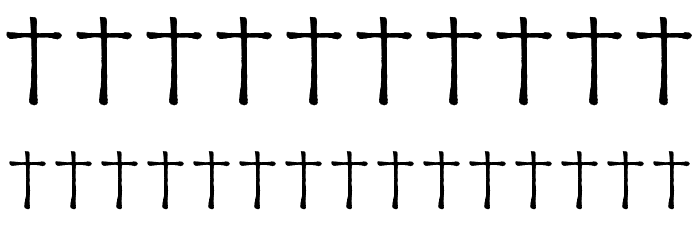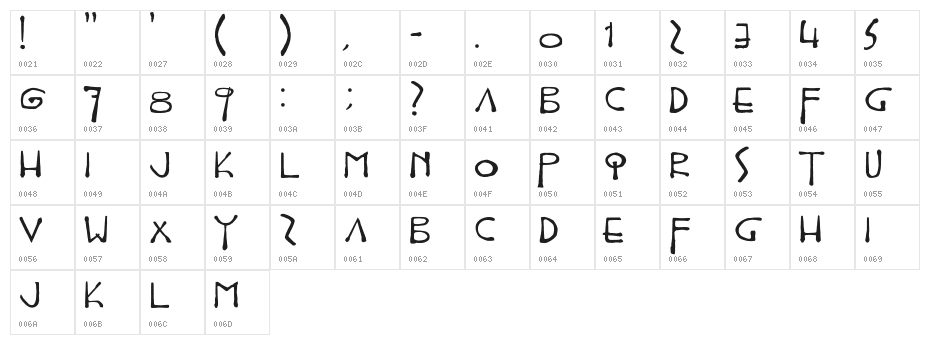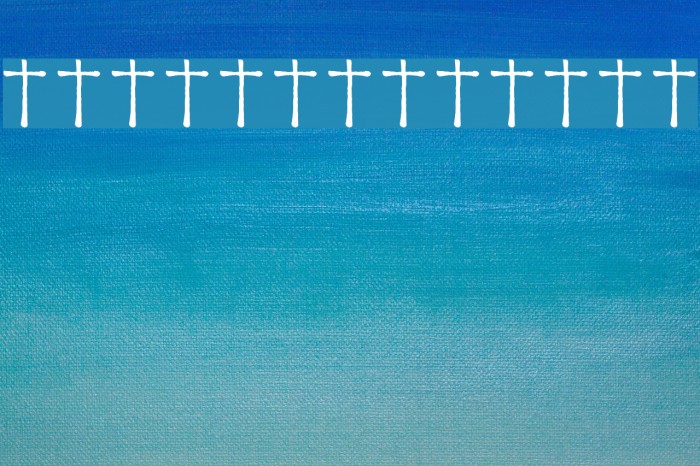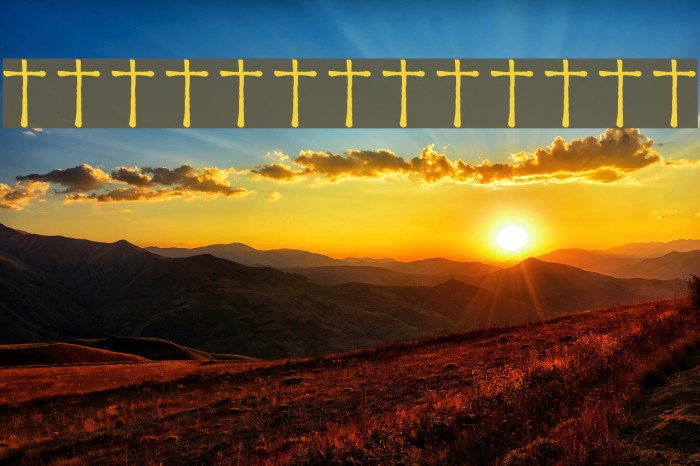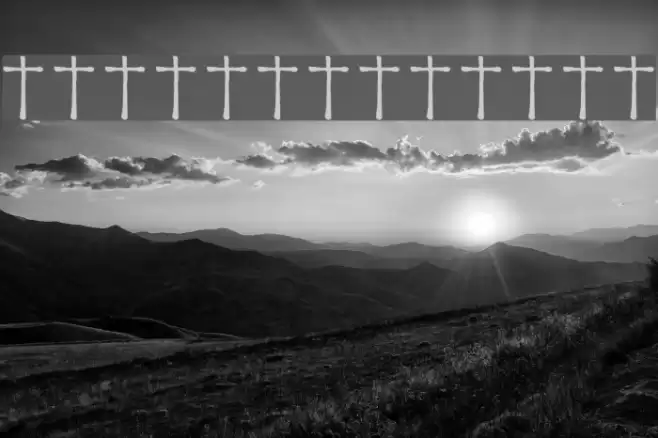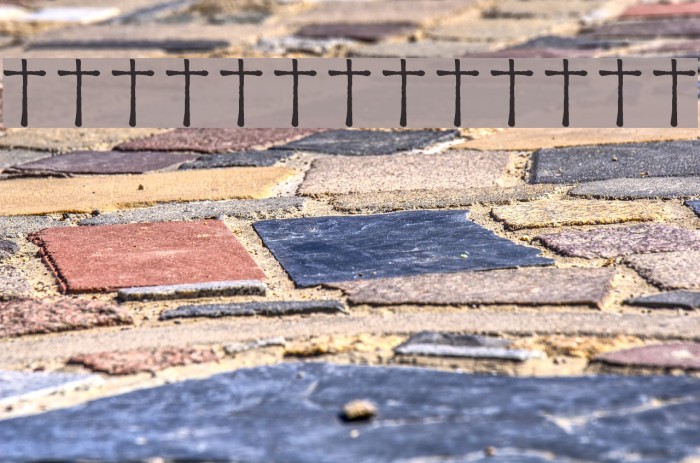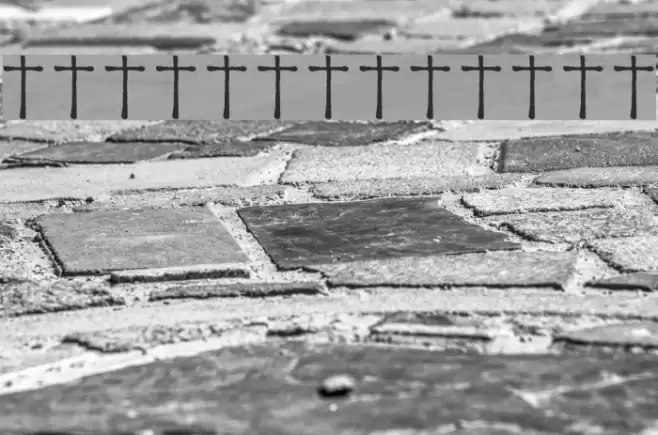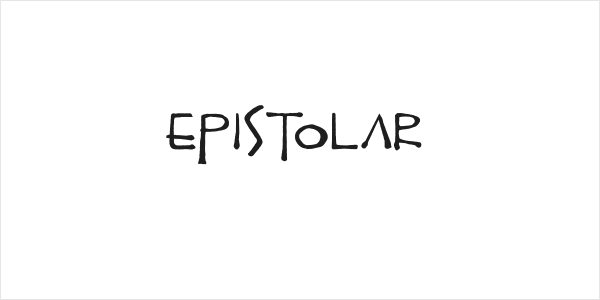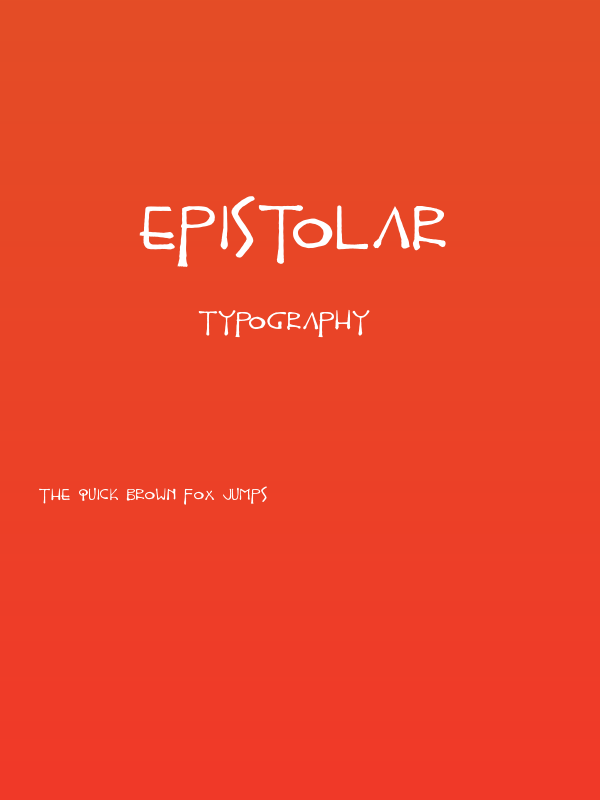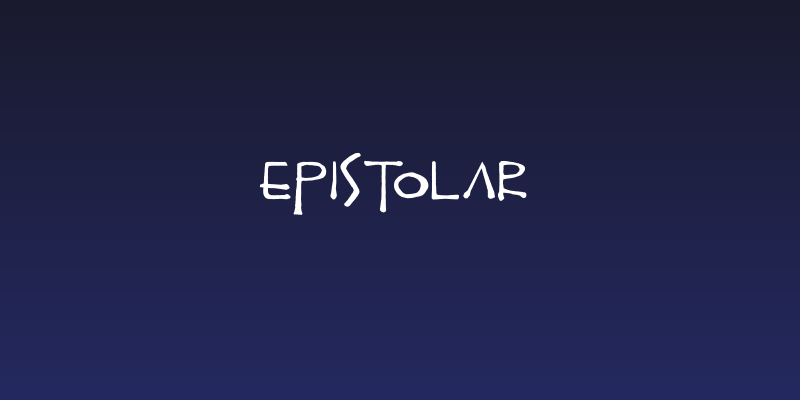
Epistolar Font
Epistolar Description
This design features a series of crosses arranged in neat rows, creating a repetitive and uniform pattern. Each cross is depicted with a simple, bold outline, emphasizing a stark contrast against the background. The uniformity of the design suggests a sense of order and symmetry, while the boldness of the crosses adds a striking visual impact. The pattern could be interpreted as symbolic or decorative, depending on the context in which it is used. The simplicity of the design allows it to be versatile, fitting into various thematic settings.
| Use Case | Decorative elements, textile patterns, religious-themed designs. |
| Proposed Projects | This pattern could be used in religious-themed projects, textile designs, wallpapers, or as a decorative element in graphic design. |